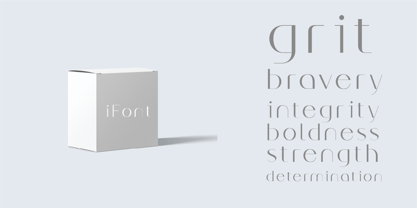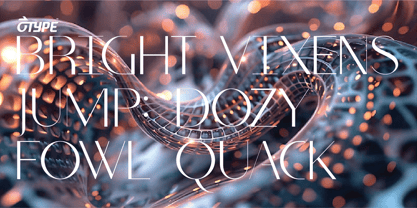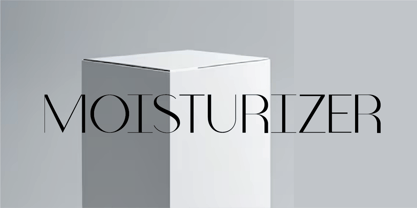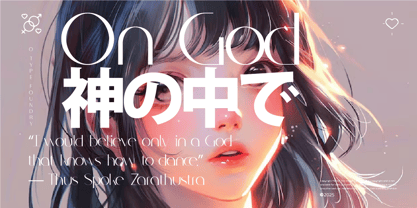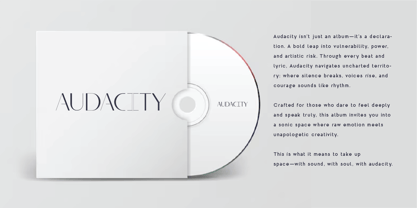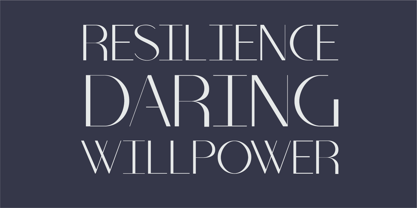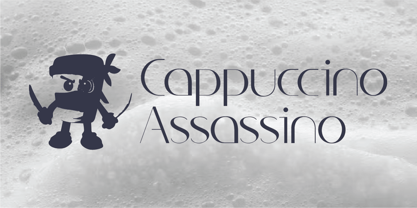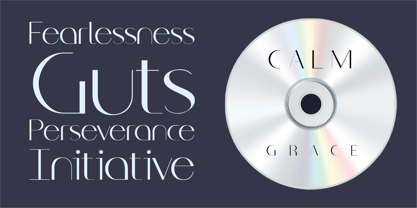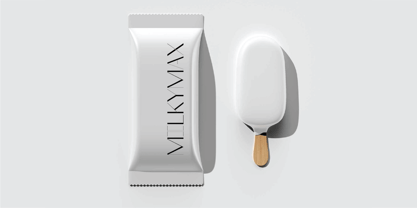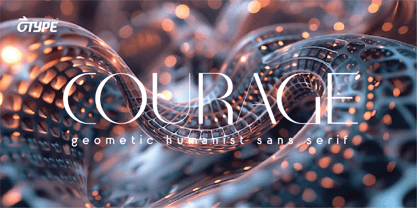
Courage O Type
The Courage O Type Font Family was designed by Galang Persada and published by O Type Foundry. Courage O Type contains 1 styles. More about this family
Courage O Type is a sans serif that offers clarity with a warm, grounded presence. Created by the O Type Foundry, this typeface is for those who communicate with care and intention. Its clean forms and distinct personality make it well-suited for modern branding that values both confidence and accessibility. Whether used in bold headlines or subtle design details, Courage supports sincere, thoughtful, and contemporary.